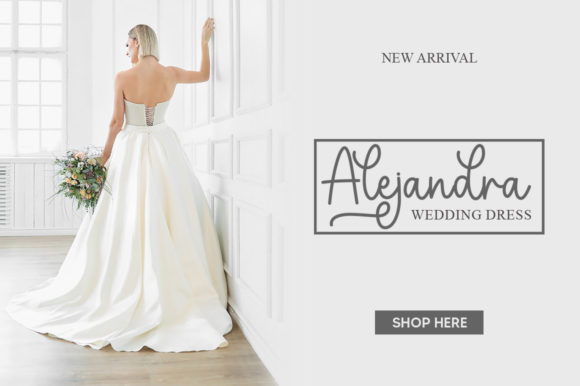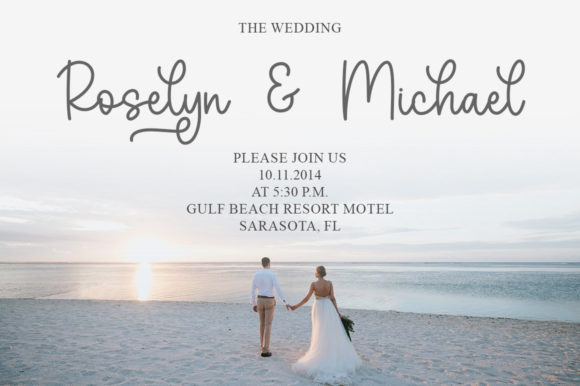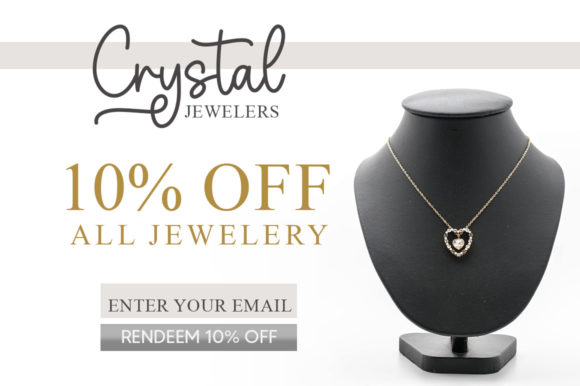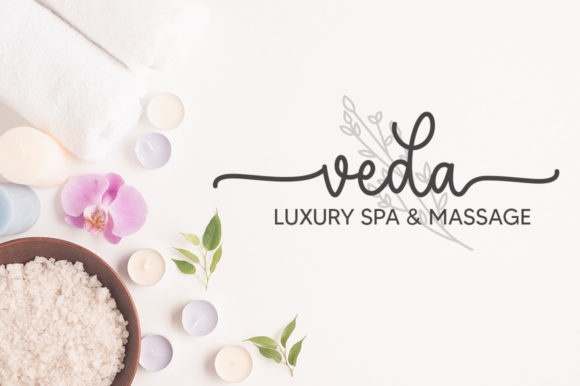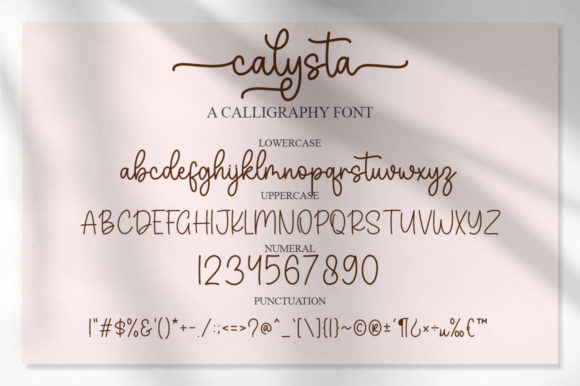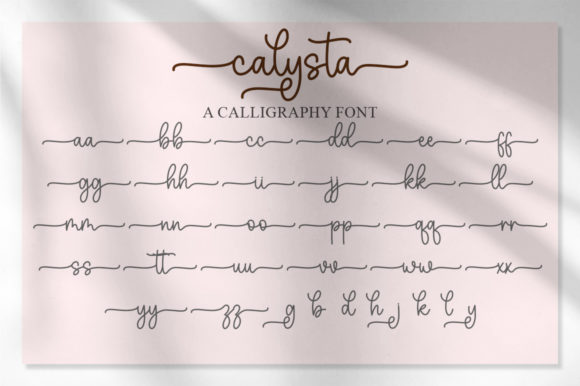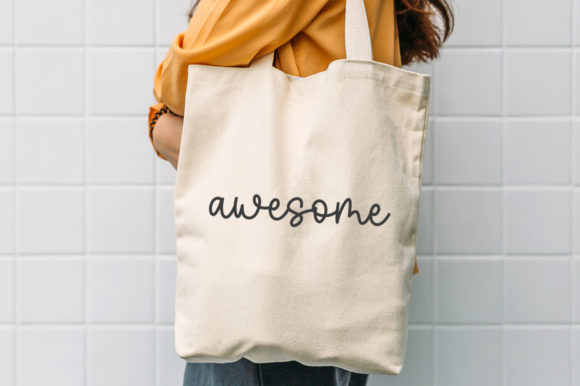
Calysta Font
About Calysta Font
“Calysta” is a dainty and flowing script font that embodies a sense of romance and elegance. Its delicate and graceful appearance makes it a perfect choice for various design projects, particularly those that aim to convey sentiments of love and beauty.
With its charming and lovely aesthetic, “Calysta” is an excellent option for crafting love letters and wedding invitations. The font’s flowing strokes and unique style can add a touch of sophistication and enchantment to these special occasions, enhancing the overall atmosphere and leaving a lasting impression on recipients.
Furthermore, the font’s inclusion of swashes and glyphs adds to its versatility and creative potential. These design elements enable you to further customize your typography, giving your projects a distinct and personalized look. The PUA encoding of “Calysta” ensures easy access to these special characters, making the process of incorporating them into your designs seamless and convenient.
Whether you’re working on love letters, wedding materials, or any other design that requires a romantic and delicate touch, “Calysta” offers a captivating and expressive typeface that can elevate your creations. Its combination of flowing lines, lovely appearance, and PUA encoding features makes it a valuable addition to your typography toolkit.